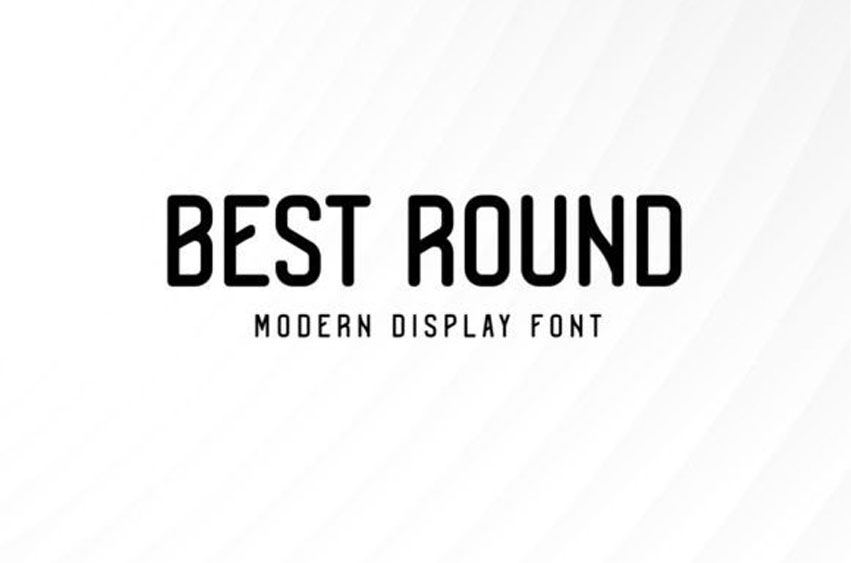
Best Round Font is a modern, clean, and rounded display font perfect for posters, cards, book titles, headlines, news, banners, flyers, stationery, and many more.
Fall in love with its incredibly versatile style and use it to create spectacular designs!